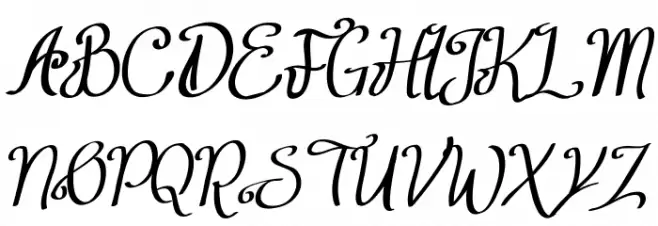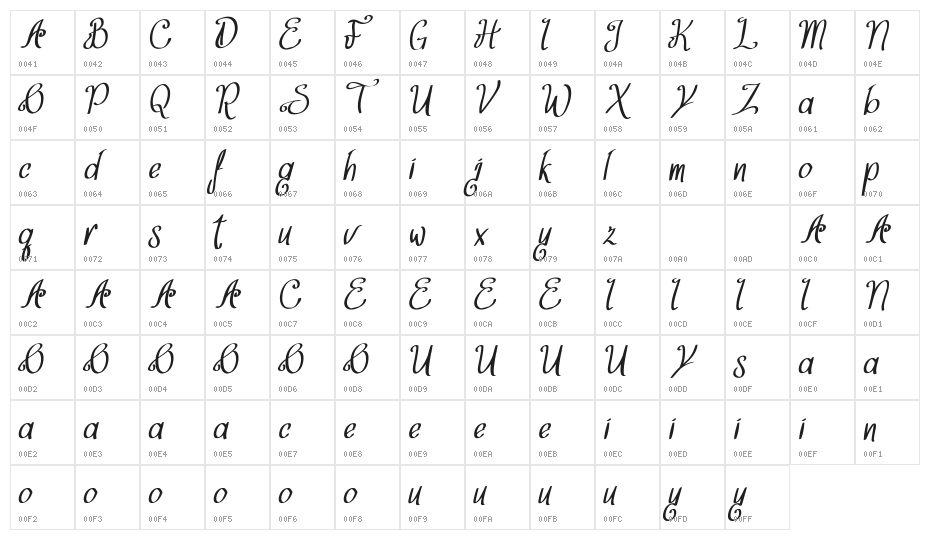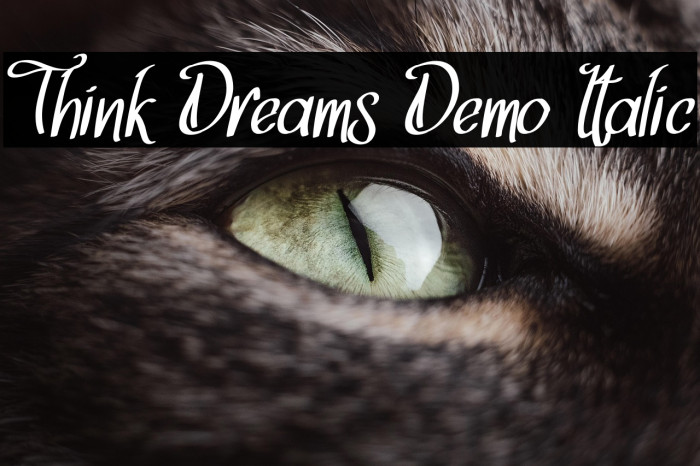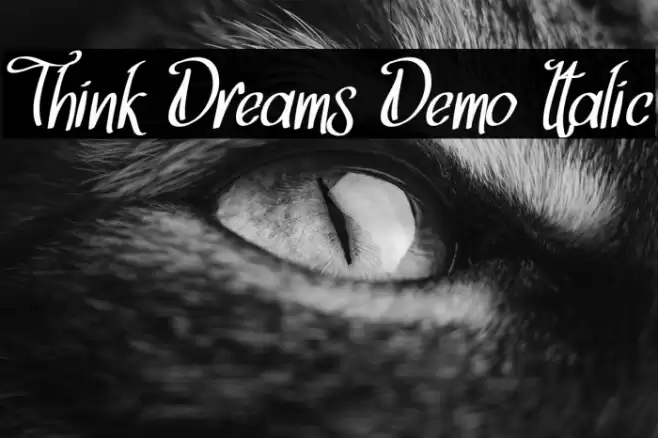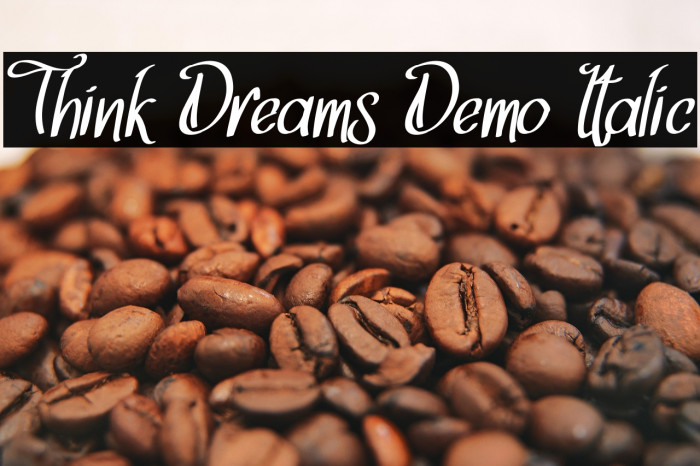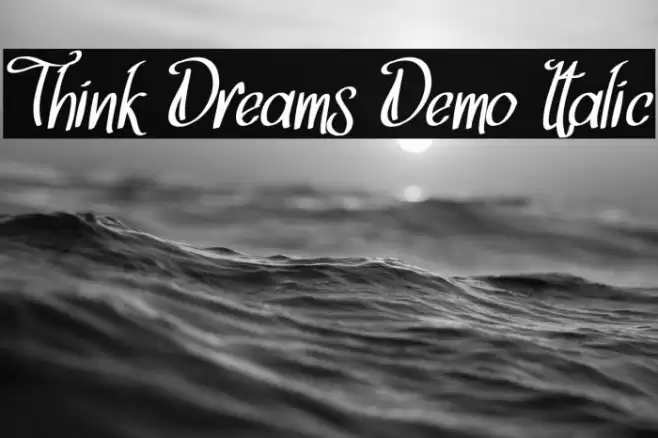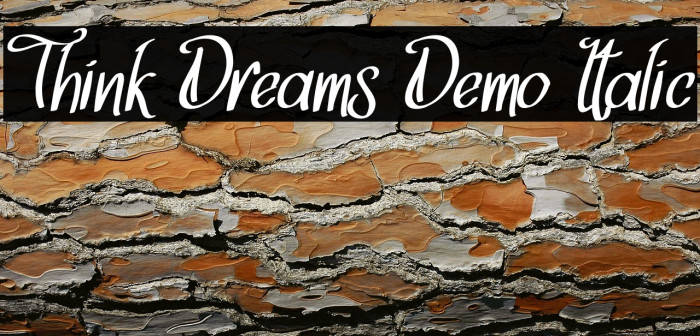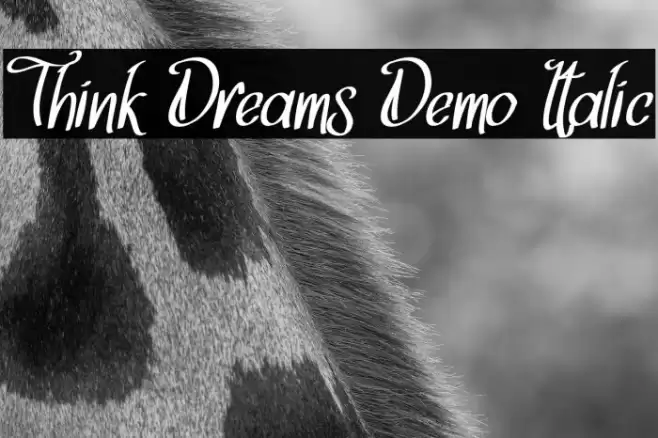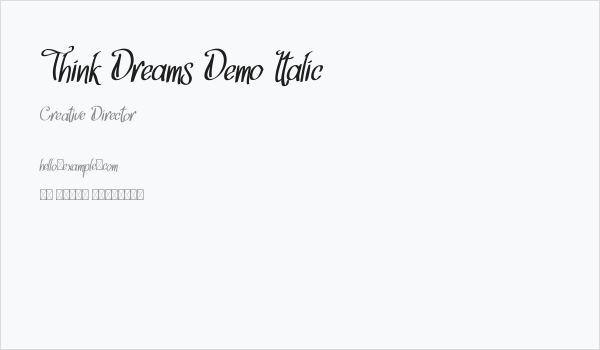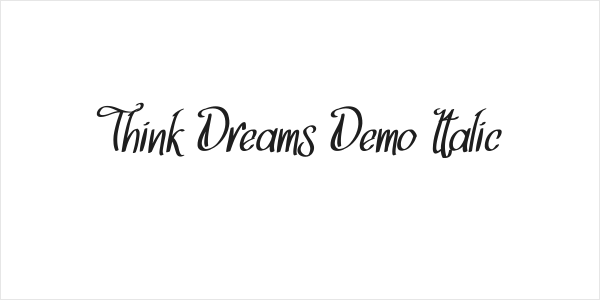
Think Dreams Demo Italic Font
Think Dreams Demo Italic Description
This font features an elegant, flowing script style with a distinct italic slant, giving it a dynamic and sophisticated appearance. The characters are intricately designed with smooth curves and flourishes, adding a touch of elegance and creativity. The uppercase letters are bold and prominent, while the lowercase letters maintain a consistent flow, enhancing readability. The font's unique style is perfect for creating a sense of movement and grace, making it ideal for artistic and decorative purposes. The overall design is both modern and timeless, suitable for a variety of creative projects.
| Use Case | Logos, Invitations, Artistic Branding |
| Proposed Projects | Ideal for wedding invitations, greeting cards, logos, and artistic branding projects. |